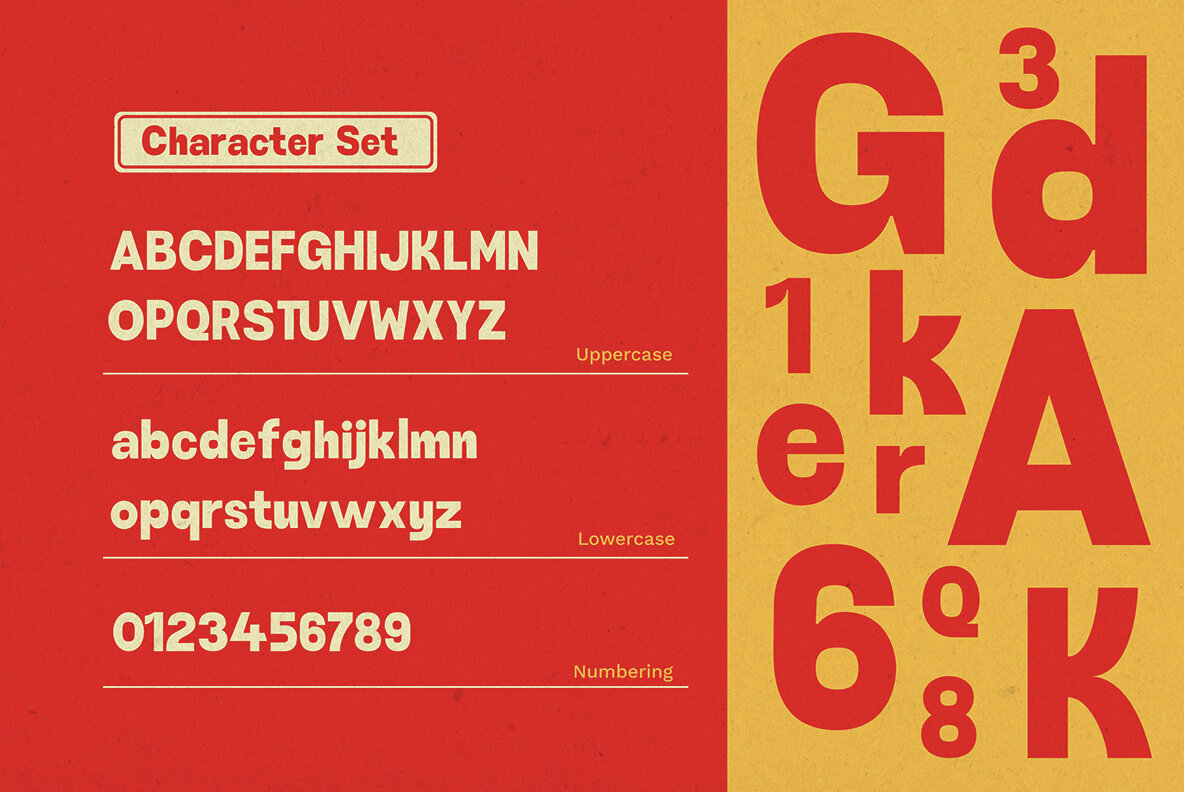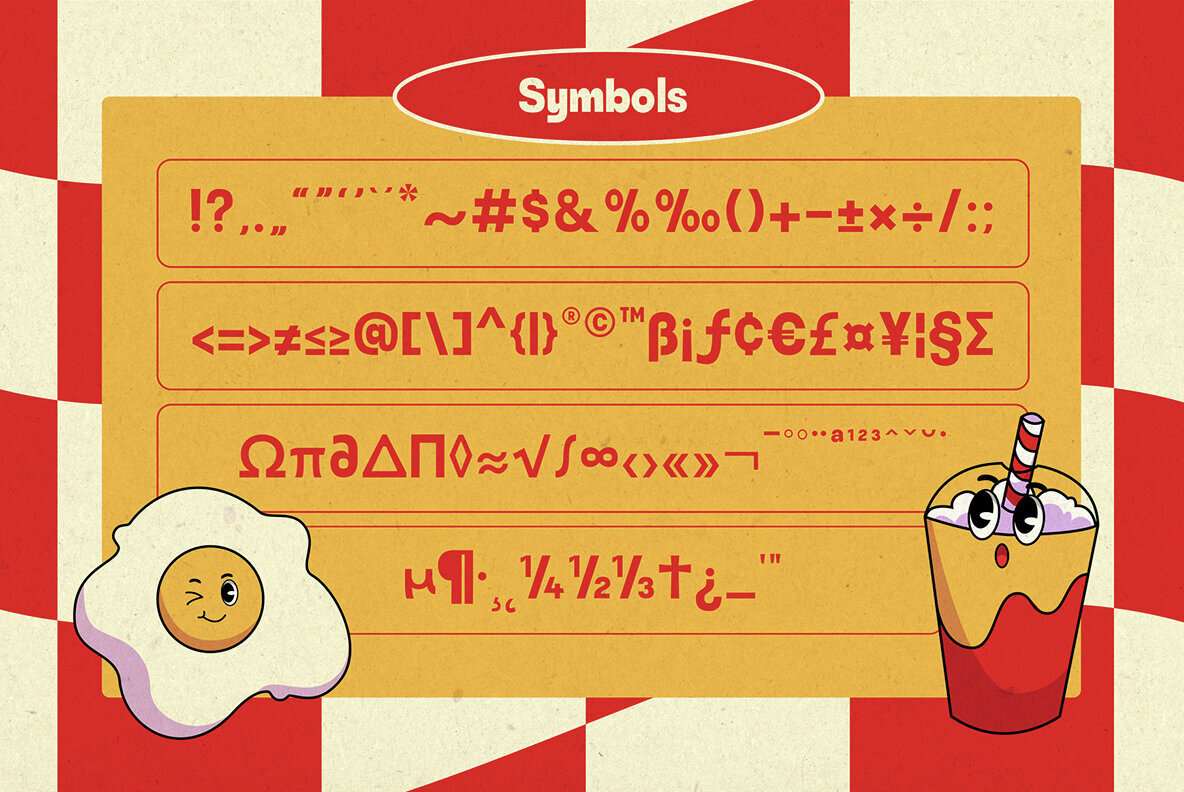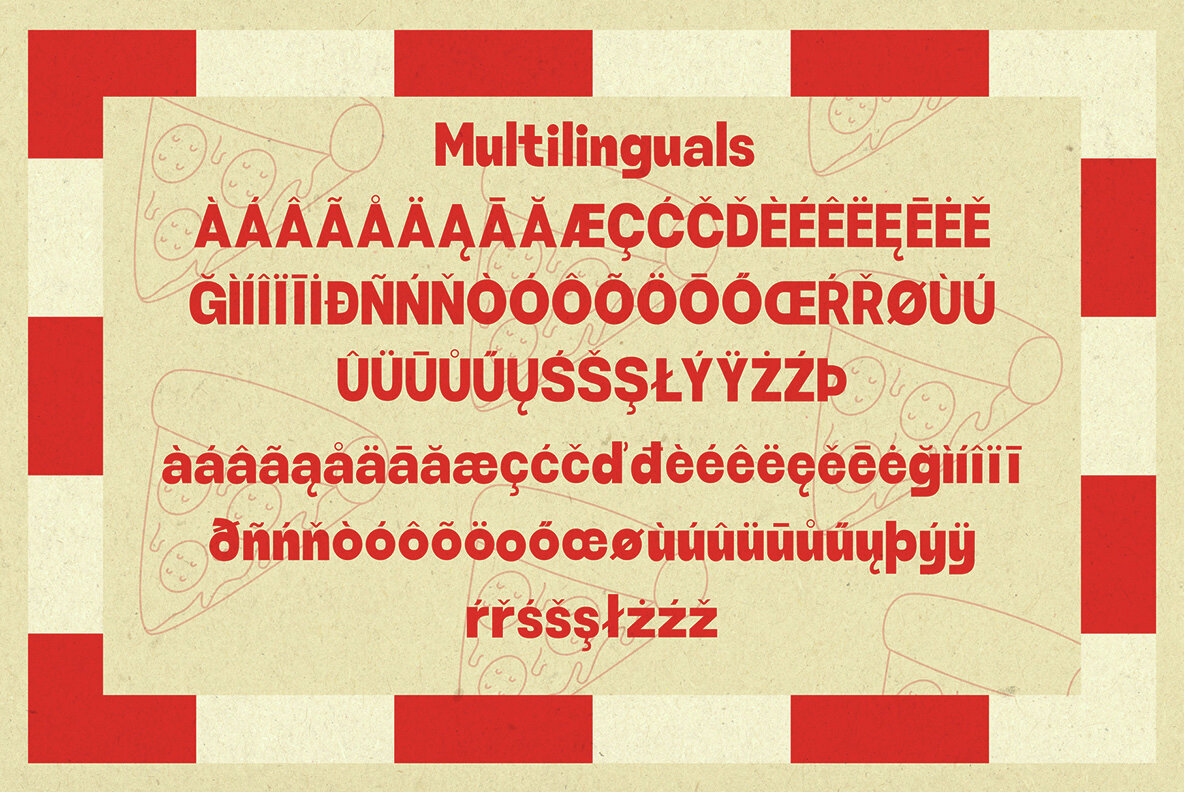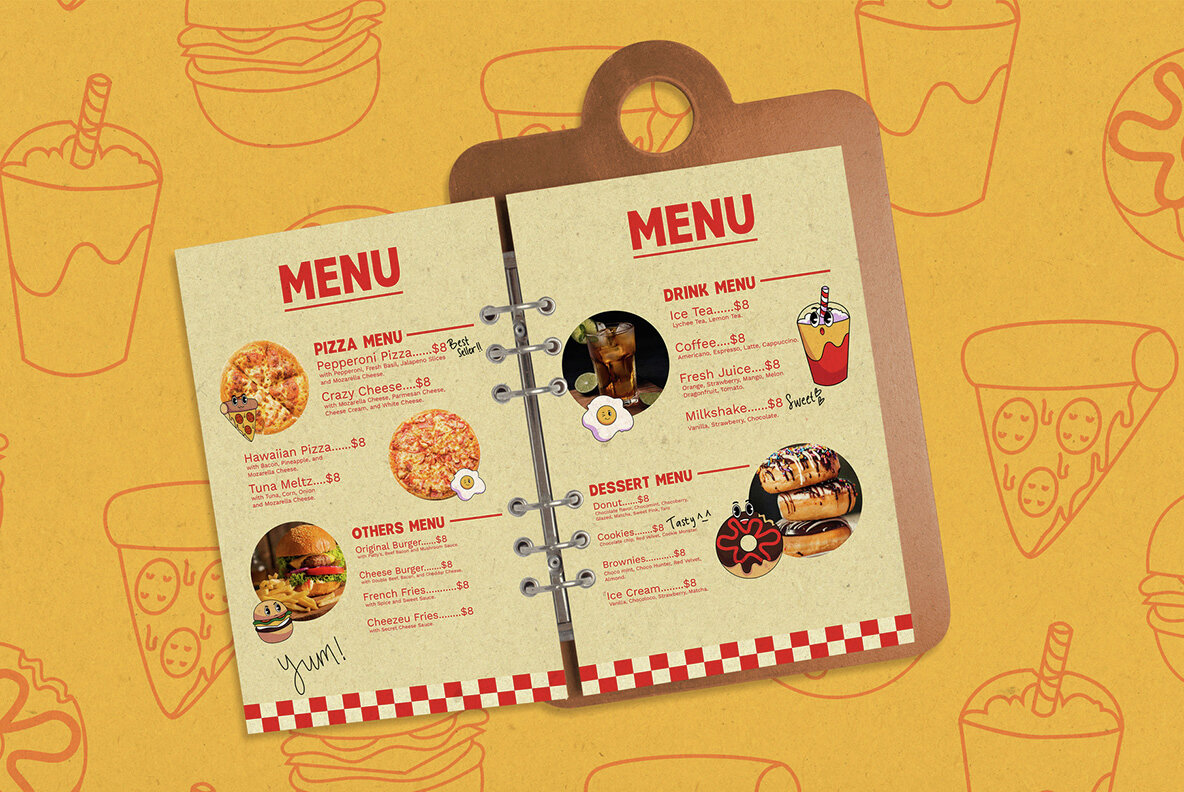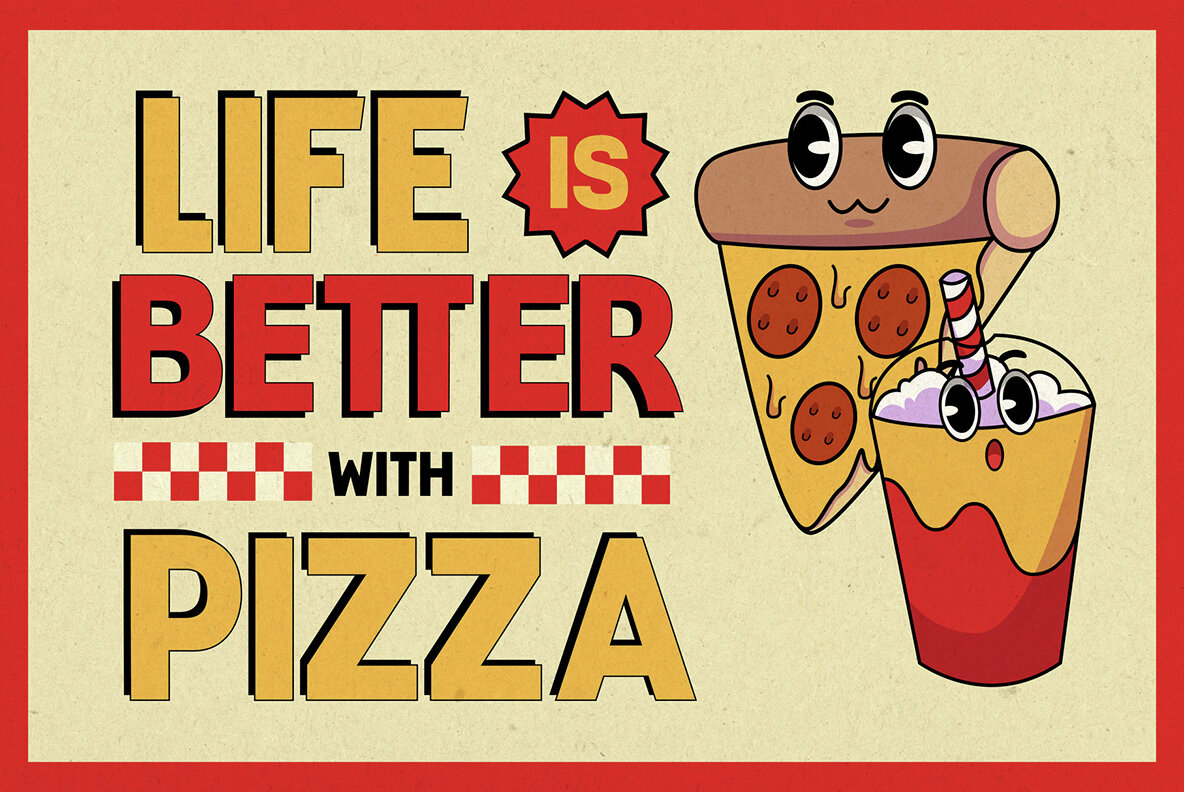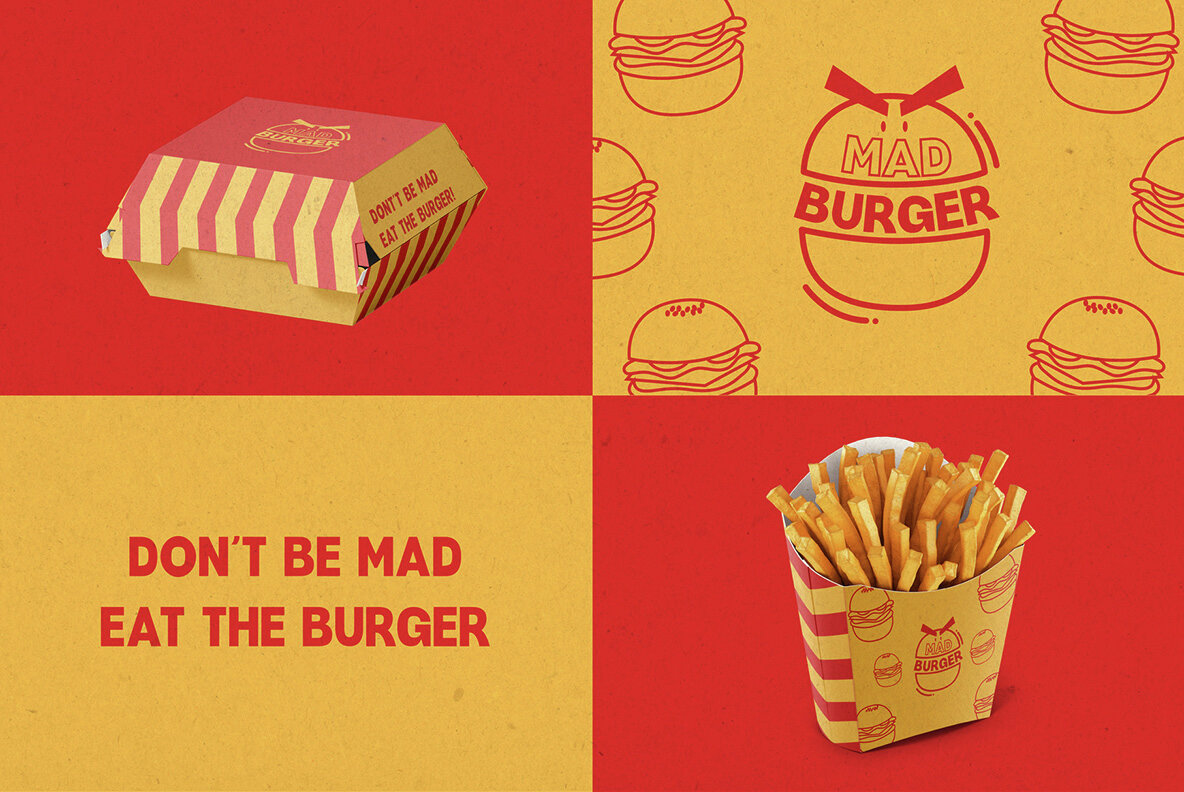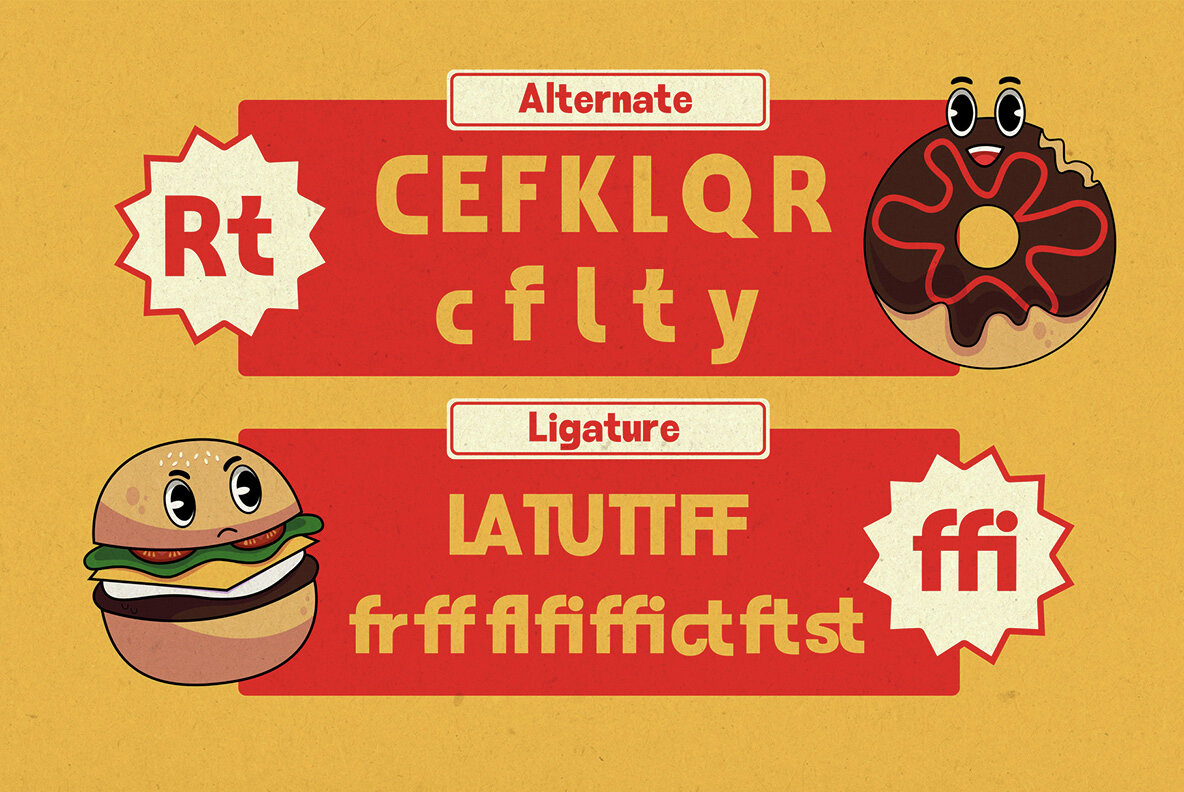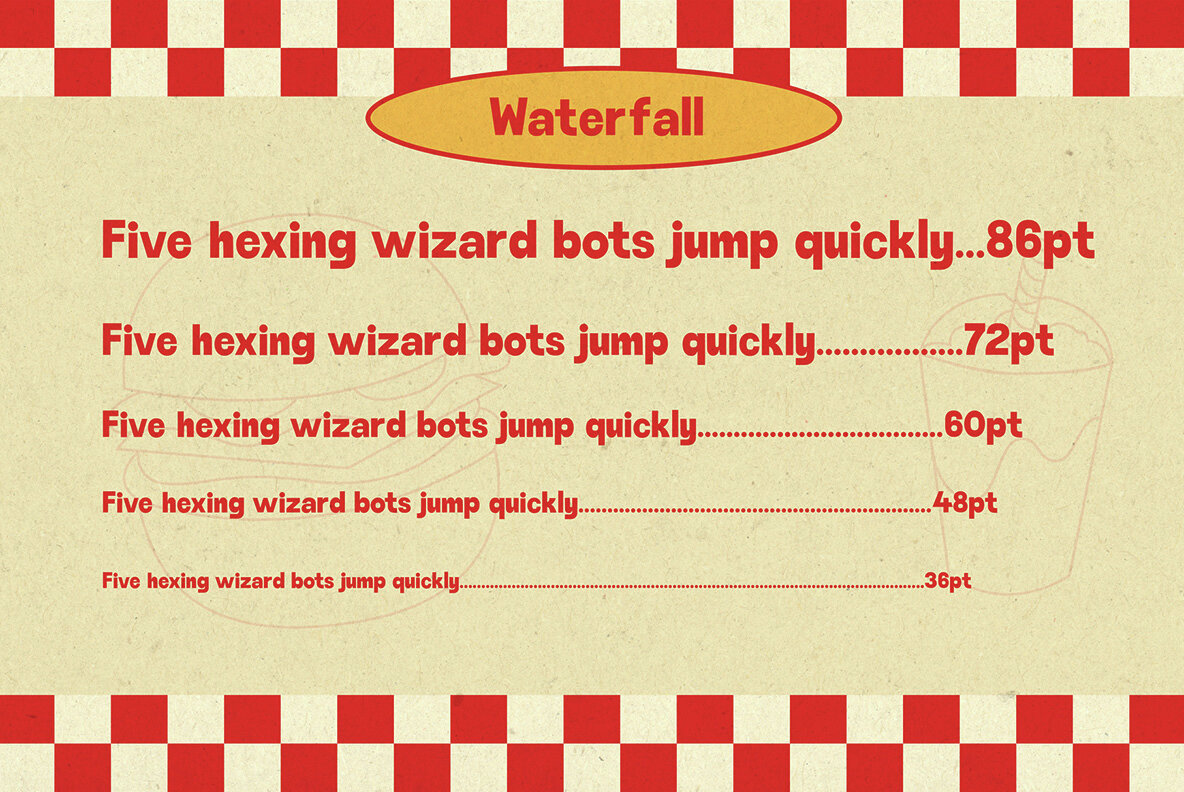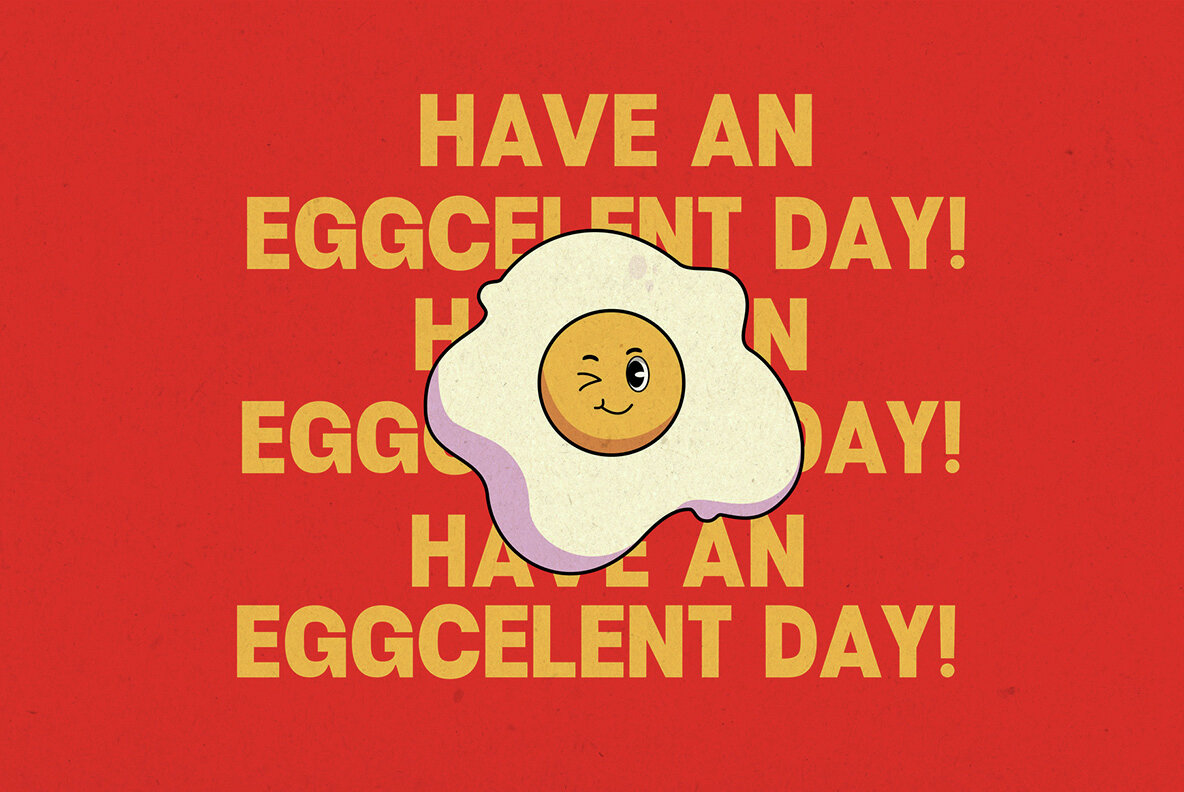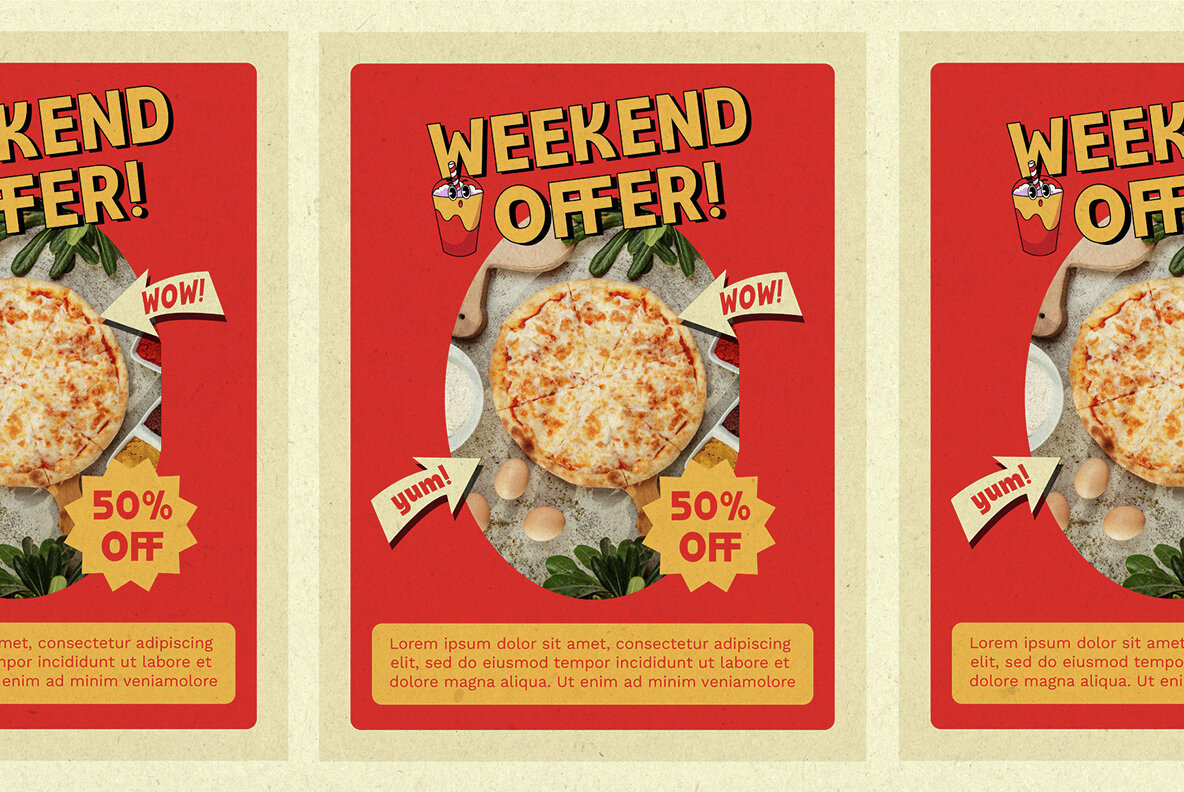
Say Cheezu Font
Say Cheezeu Regular
Introducing our latest Sans Serif display font "Say Cheezeu" inspired by the retro aesthetics of fast-food restaurants. With its curved and bold design, Say Cheezeu creates a playful impression, making your designs more engaging and attractive. Suitable for various projects such as food branding, packaging, clothing, and other creative endeavors. This font comes with various features, including alternatives, ligatures, and multilingual support. Don't miss out on the exclusive set of 5 'Mr. Pizz n Friends' stickers available. Perfect your design by combining letters according to your preferences using Say Cheezeu. YUMz!